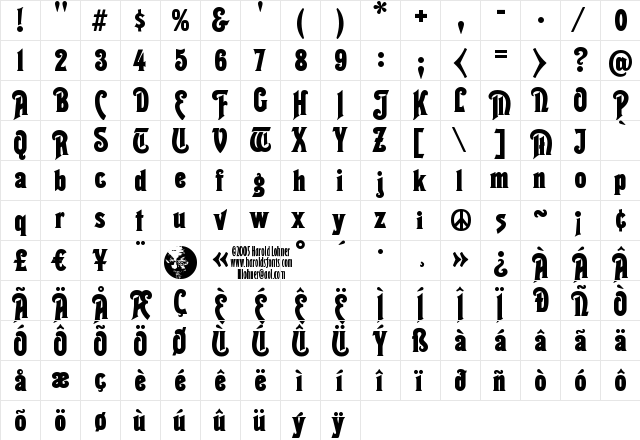
Thaleia Regular Font Preview
Thaleia Regular
Thaleia Regular Font Details
Design Context for Thaleia Typeface
Thaleia is a composed and adaptable typeface that performs quietly and consistently across a wide range of design contexts.